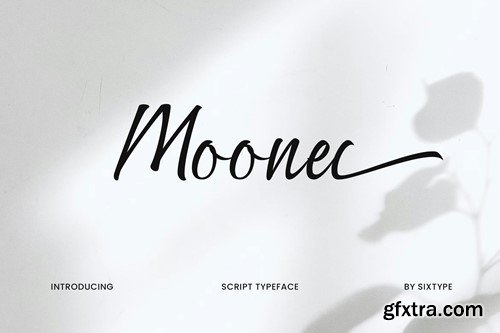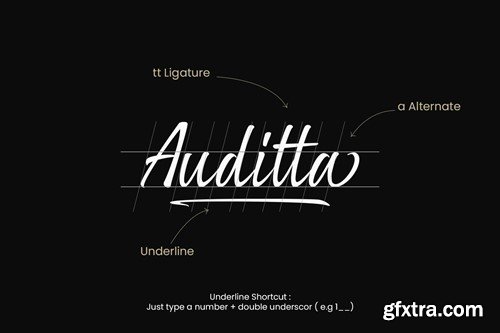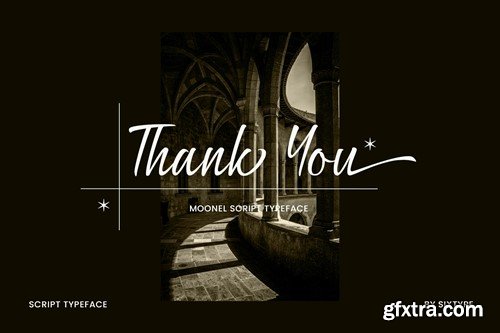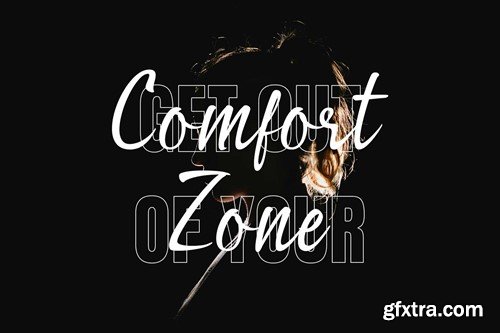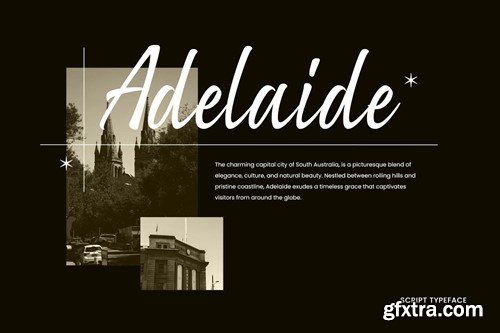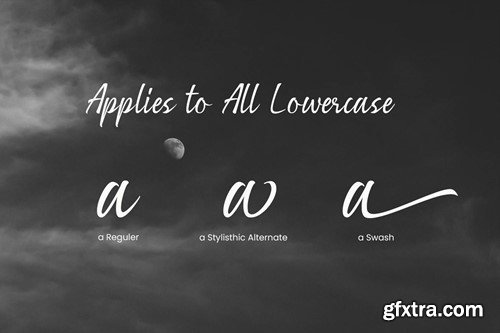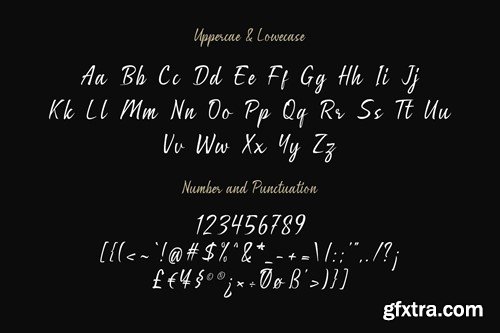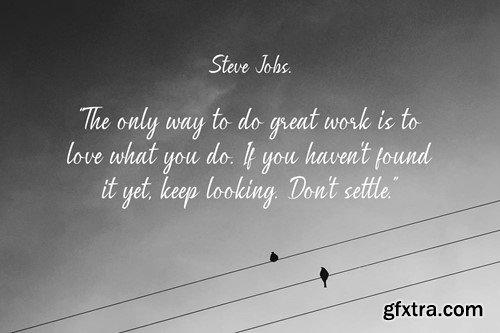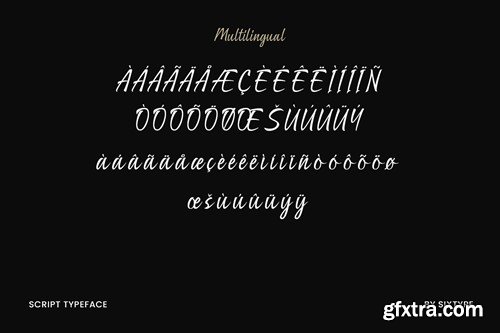
Moonel - Script Typeface
Moonel Font is a contemporary script font designed with a luxurious calligraphic style, perfect for enhancing invitations, greeting cards, branding materials, business cards, quotes, posters, and various creative projects. This font offers an array of alternative characters, meticulously crafted and organized into OpenType features such as Stylistic Sets, Stylistic Alternates, Contextual Alternates, SWASH, and Ligatures. File Includes: Note: Kindly be informed that the images and photographs within the model are for presentation purposes only and are not included in the download file. Thanks for your cooperation, and enjoy!